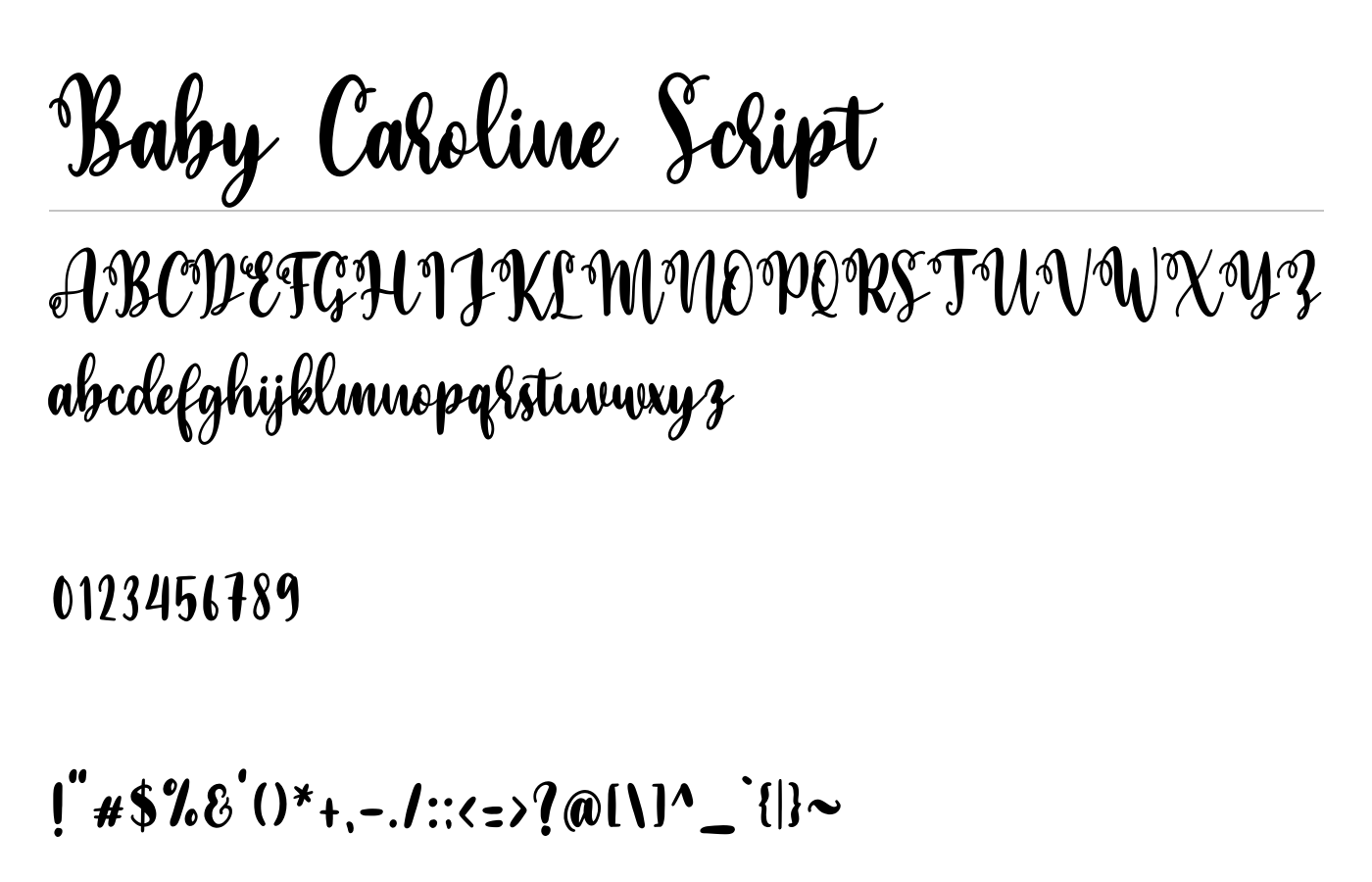
Baby Caroline Script is a lively and charming handwritten script font featuring smooth, flowing strokes with playful curls and loops. Its medium weight and natural rhythm give it a warm, friendly feel, making it perfect for invitations, greeting cards, branding, and other designs that need a personal, whimsical touch. This font works well in creative and casual contexts where an approachable yet stylish handwritten look is desired.
Baby Caroline Script Font
About Baby Caroline Script Font
| Font family | Baby Caroline Script Font |
| Designer | dianhaniff |